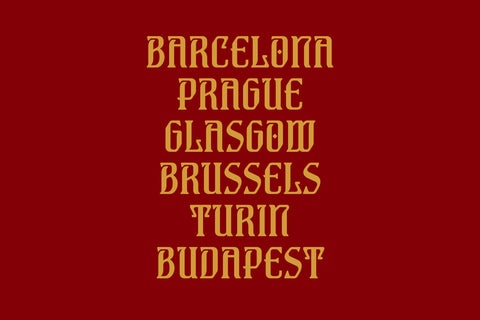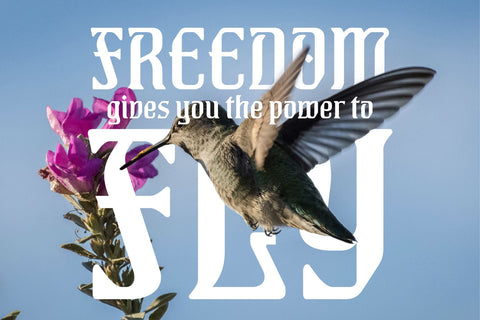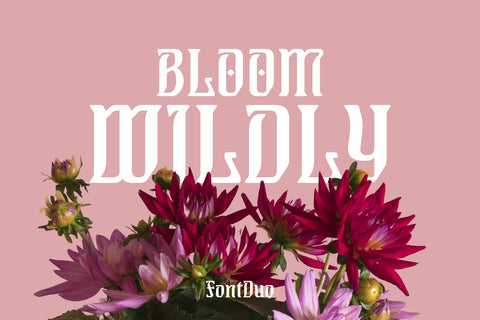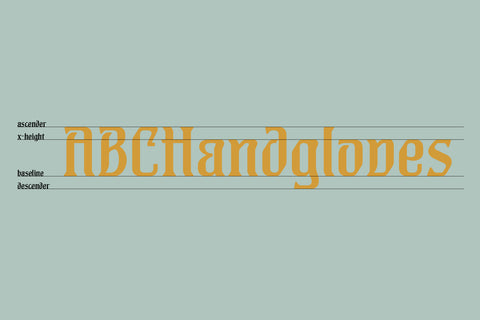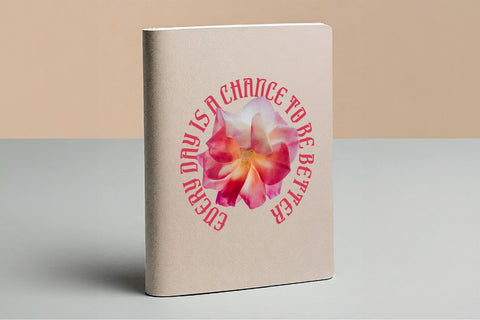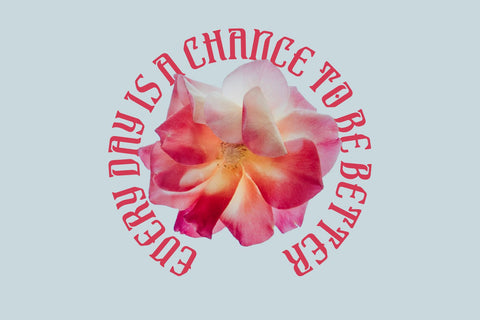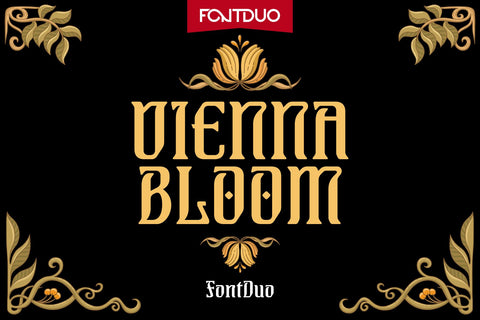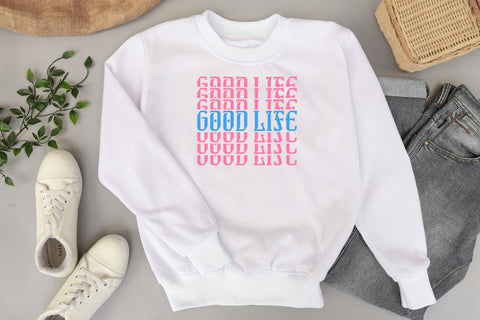
Vienna Bloom Art Nouveau Font
Vienna Bloom FD is a type revival of the Hohenzollern font, reimagining its original Art Nouveau elegance with a contemporary twist. This revival keeps the ornamental qualities of the historic typeface while making it more functional and readable.